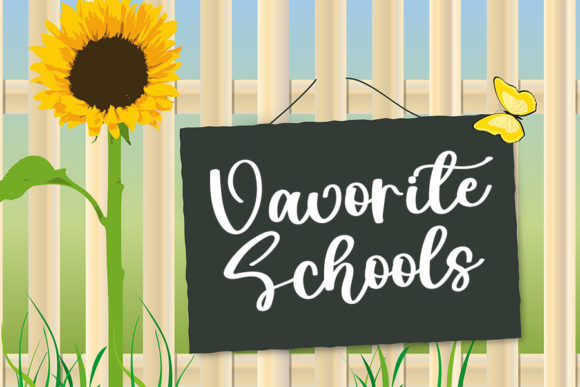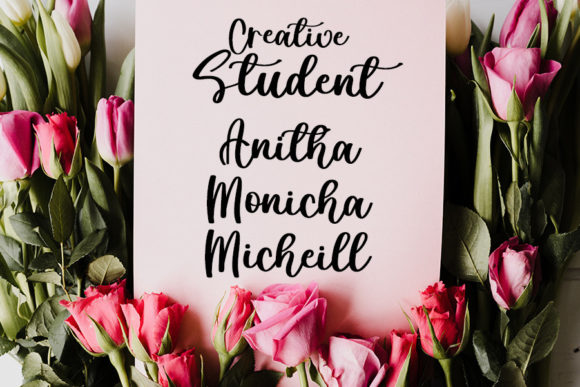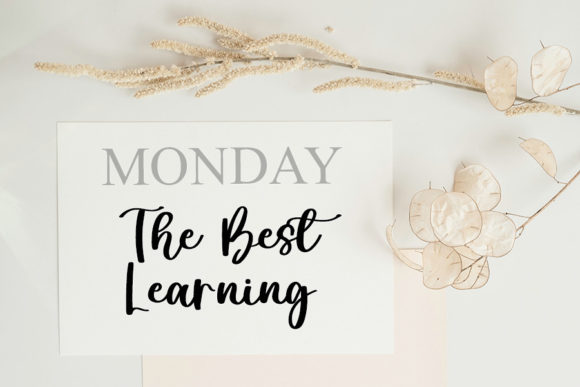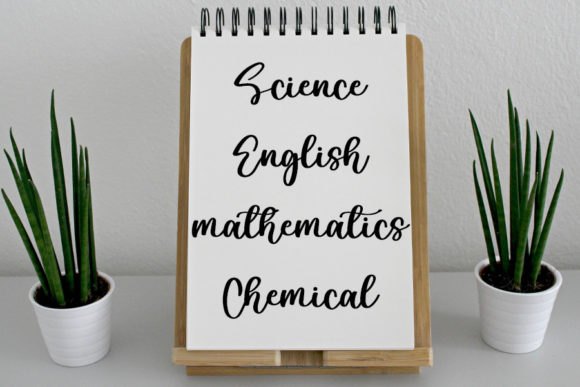
The Perfect Font for a Fresh New Start: Back to School Font
There’s nothing quite like the thrill of a blank canvas, waiting to be filled with your next creative project. The possibilities are endless, and your imagination is running wild. You’re brainstorming ideas, sketching out concepts, and trying to decide on the perfect font to bring it all to life. And then, it hits you – the perfect font to make your design truly shine.
Enter the Back to School Font, a charming script font that’s sure to capture the playful essence of your creative vision. This delightful font features whimsical characters that dance along the baseline, adding a touch of magic to any design. Whether you’re working on a project for a client or simply creating something for yourself, the Back to School Font is a valuable addition to your design toolkit.
Key Features of “Back to School Font”
- Unique Characteristics: The font features a playful, cursive design with a mix of uppercase and lowercase letters, making it perfect for adding a touch of whimsy to educational materials.
Back to School Font Review
I recently had the chance to work with the “Back to School Font”, and I must say it’s a fun and playful addition to any design project. ✨ Here are a few things that stood out to me:
- Unique and quirky style – The font’s casual, handwritten feel is perfect for projects that need a lighthearted touch.
- Highly legible – Even in smaller font sizes, the text remains easy to read, making it a great choice for body text.
- Perfect for educational content – The font’s name says it all – it’s ideal for back-to-school materials, educational websites, and any other project related to learning.
- Not ideal for formal or professional projects – The font’s playful style may not be suitable for more serious or formal content.
- May not be easily recognizable at small sizes – While the font is legible, it may not be as readable as some other fonts at extremely small sizes.
Overall, I think the “Back to School Font” is a great choice for projects that need a fun and approachable feel. It’s a great addition to any designer’s toolkit, and I’d definitely recommend it for educational or lighthearted content.
Tips for Getting the Most Out of the Back to School Font
Use the Back to School font for titles, headings, and emphasis to add a playful touch to your designs. Experiment with different font sizes and styles to create visual interest. Combine the font with other design elements, such as images and graphics, to create a cohesive look.
The Back to School font is ideal for educational and summer-themed designs, such as invitations, posters, and social media graphics. It’s also a great choice for creating a fun and playful atmosphere for events, such as back to school parties or summer camps.